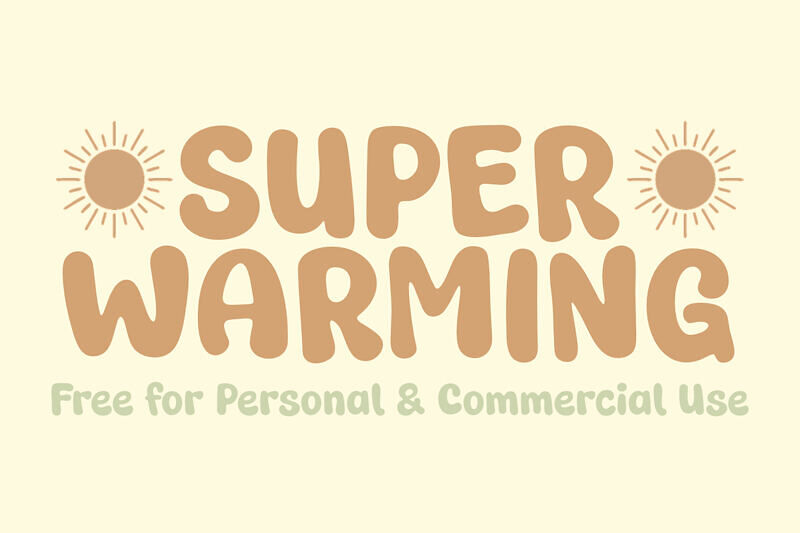
Super Warming is a playful cartoon-style font with bold, rounded lettering and a cheerful personality. Its fun and energetic design makes it perfect for kids’ projects, posters, logos, YouTube thumbnails, packaging, and creative branding.
The smooth curves and chunky shapes give your text a warm, friendly, and eye-catching appearance that stands out beautifully in both print and digital designs.